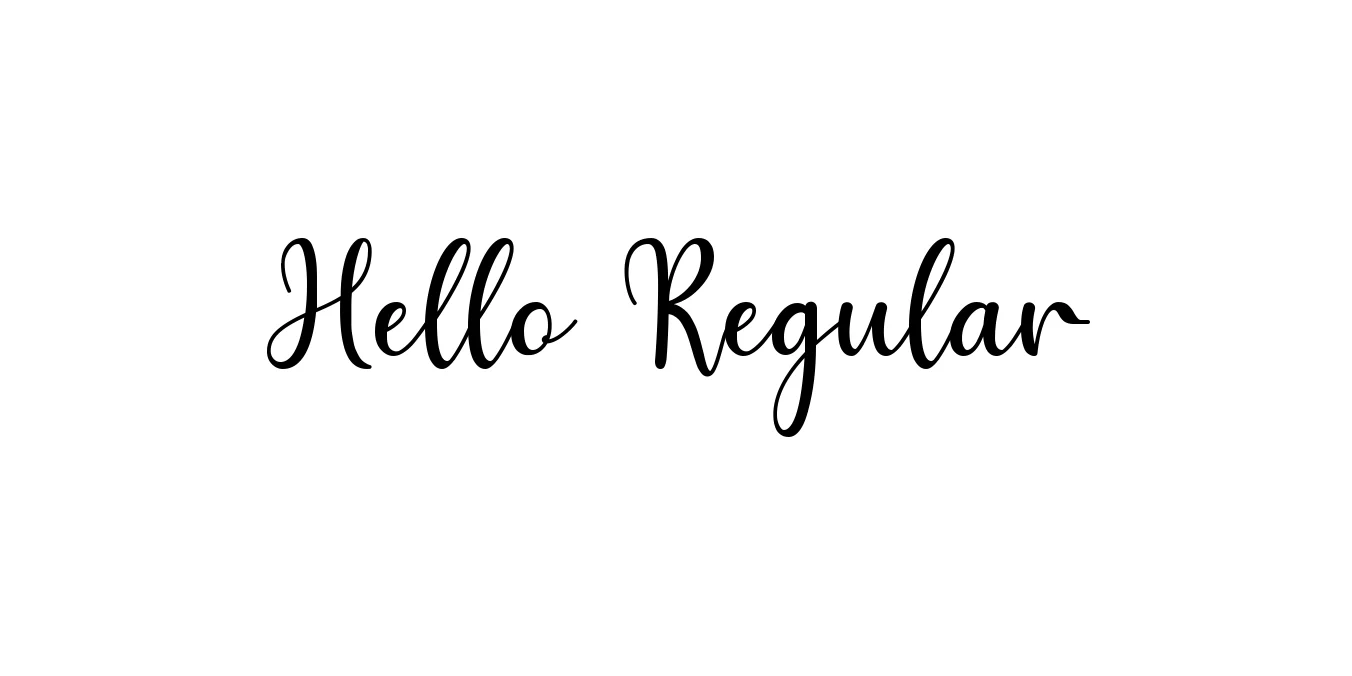
Hello Regular
Designed by Artimasa Studio
Hello Regular is a sophisticated and modern script font crafted by the creative team at Artimasa Studio. It features a natural, fluid flow that mimics authentic handwriting, offering an organic aesthetic that is both elegant and approachable. The typeface is designed with smooth transitions and subtle loops, making it highly versatile for a wide range of creative design applications that require a personal touch.
This typeface is widely recognized for its high-quality character sets and decorative flourishes. Hello Regular is frequently utilized in high-end branding, fashion marketing, and event planning because of its distinct signature style. Whether used for digital graphics or printed materials, it maintains exceptional legibility while providing a handcrafted feel that stands out in a crowded visual landscape.
Hello Regular Best Uses
Ideal for creating unique, personal logos and corporate identities.
Perfect for invitations, RSVP cards, and romantic place settings.
Great for high-engagement aesthetic quotes and Instagram stories.
Adds a luxury, handcrafted feel to premium product labels.